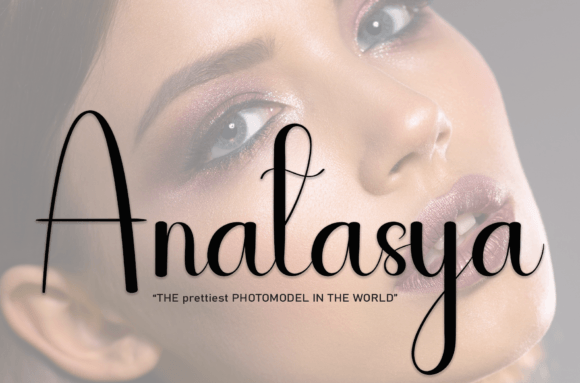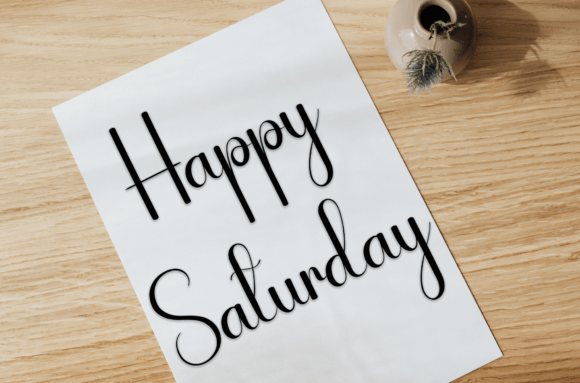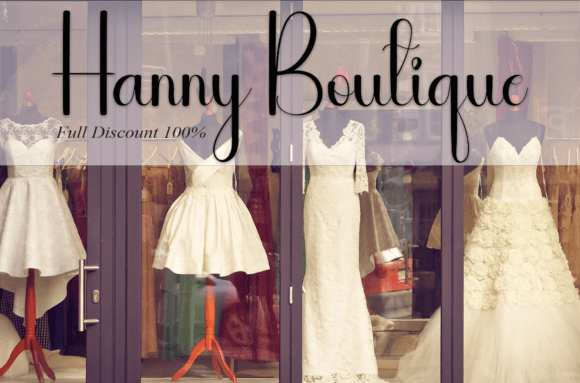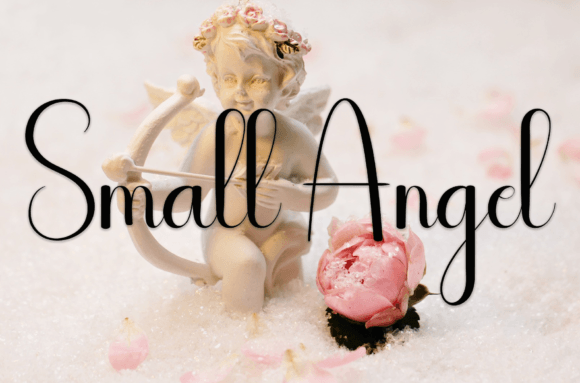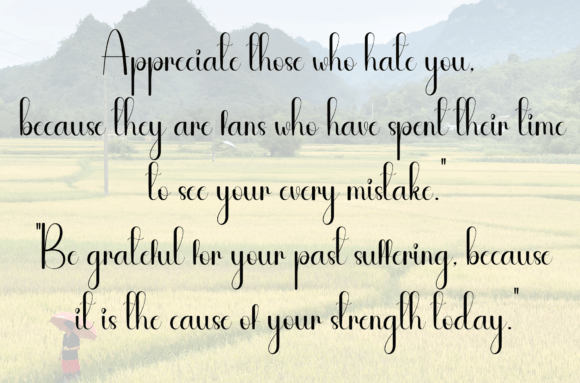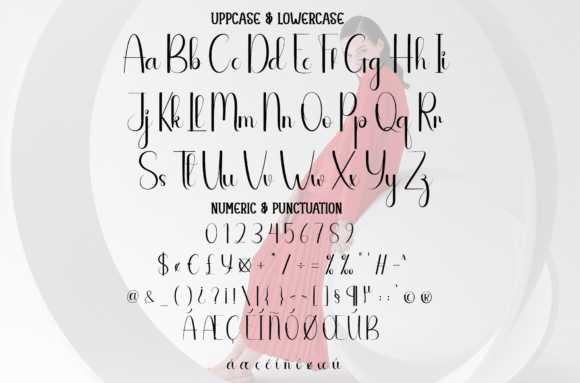
Introducing Advanced Font: The Sweet and Friendly Handwritten Font for Your Creative Projects
Are you looking for a font that can add a touch of warmth and personality to your designs? Look no further than Advanced Font, a sweet and friendly handwritten font that’s perfect for a variety of creative projects. In this article, we’ll take a closer look at Advanced Font, its features, and how you can use it to elevate your designs.
What is Advanced Font?
Advanced Font is a beautifully crafted handwritten font that’s fresh, neat, and full of character. Its sweet and friendly tone makes it an ideal choice for designs that require a personal touch. Whether you’re creating wedding invitations, greeting cards, or any other design that needs a fun and playful twist, Advanced Font is the perfect choice.
Key Features of Advanced Font
- Handwritten style: Advanced Font has a natural, handwritten look that’s perfect for adding a personal touch to your designs.
- Fresh and neat: The font is clean, modern, and easy to read, making it perfect for a variety of design applications.
- Sweet and friendly tone: Advanced Font has a warm and inviting tone that’s sure to capture the attention of your audience.
- Versatile: This font is suitable for a wide range of design projects, from wedding invitations to social media graphics.
Use Cases for Advanced Font
Advanced Font is a versatile font that can be used in a variety of design projects. Here are some use cases to get you started:
- Wedding Invitations: Advanced Font is perfect for creating beautiful and elegant wedding invitations that set the tone for the big day.
- Greeting Cards: Add a personal touch to your greeting cards with Advanced Font, making them extra special for birthdays, holidays, and other celebrations.
- Social Media Graphics: Use Advanced Font to create engaging social media graphics that showcase your brand’s personality.
- Branding and Packaging: Advanced Font can be used to create a cohesive brand identity that reflects your brand’s values and personality.
Tips for Using Advanced Font
Here are some tips to help you get the most out of Advanced Font:
- Pair with other fonts: Advanced Font looks great when paired with other fonts, such as sans-serif fonts for a modern contrast.
- Experiment with colors: Try out different color combinations to find the perfect match for your design.
- Use it sparingly: Advanced Font is a statement font, so use it sparingly to add emphasis and personality to your design.